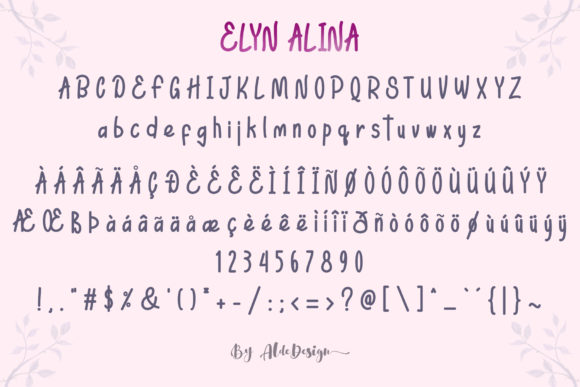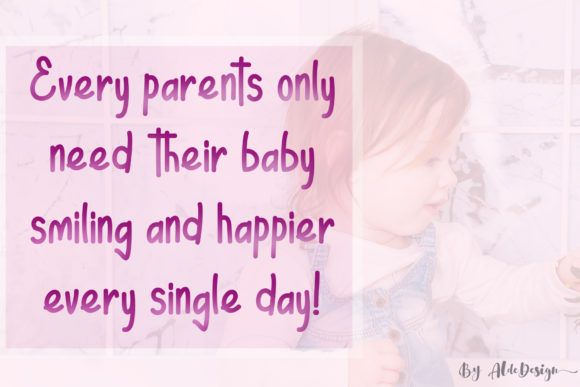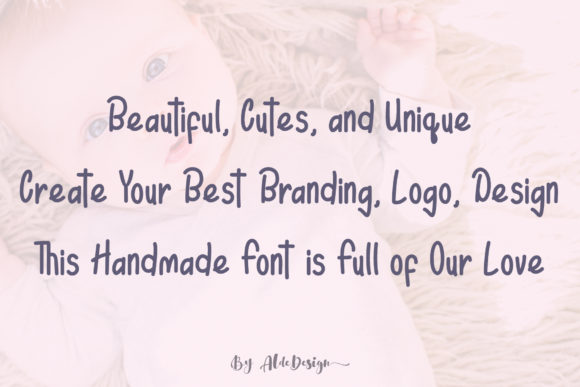
Elyn Alina Font
About Elyn Alina Font
The Elyn Alina is a warm handwritten font. The font design looks simple without losing its elegance and warmness. Its function is to show that you have a modern spirit to serve high-quality products and services.